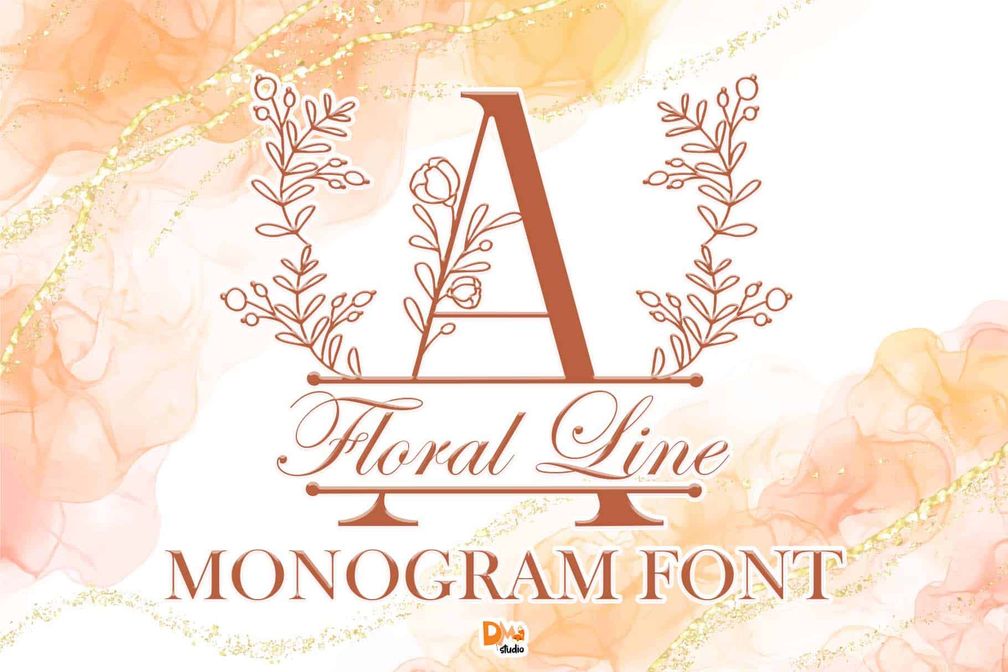
Floral Line Monogram
Floral Line Monogram – Elegant & Delicate Monogram Font
Floral Line Monogram is a beautifully crafted typeface featuring intricate floral line art within each letter. This sophisticated and ornamental font is perfect for wedding invitations, luxury branding, personalized stationery, boutique packaging, and artistic designs. Its delicate yet timeless aesthetic adds a touch of elegance to any project.
✔ Intricate Floral Line Design – Each letter is adorned with hand-drawn floral elements.
✔ Perfect for Elegant & Luxury Projects – Ideal for wedding stationery, logos, branding, and personalized gifts.
✔ Timeless & Ornamental Aesthetic – A refined combination of monogram elegance and floral beauty.
✔ Complete Character Set – Includes uppercase, lowercase, numbers, punctuation, and multilingual support.